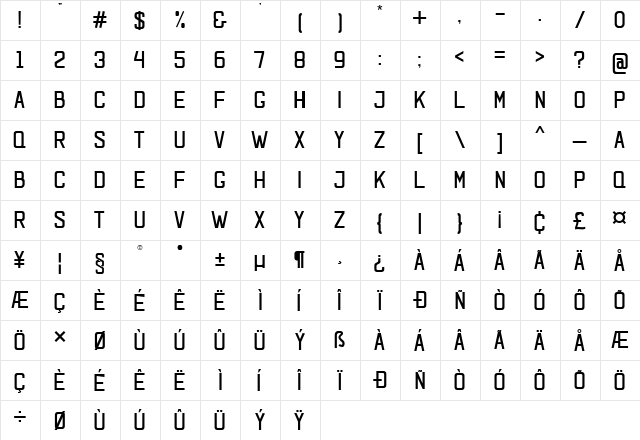
laxero Regular
Design Context for laxero Typeface
laxero is a composed and adaptable typeface that performs quietly and consistently across a wide range of design contexts.